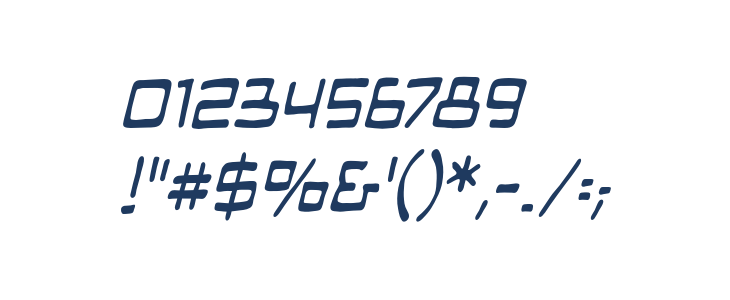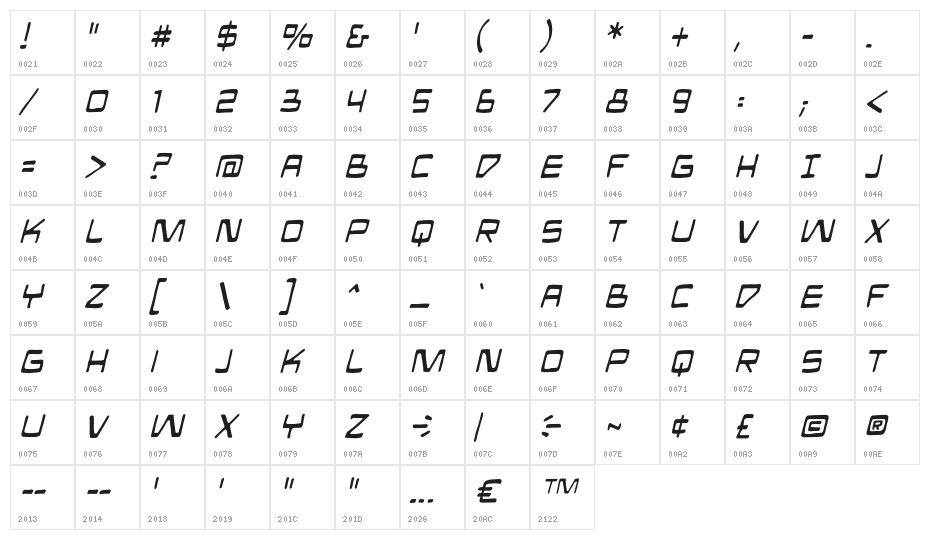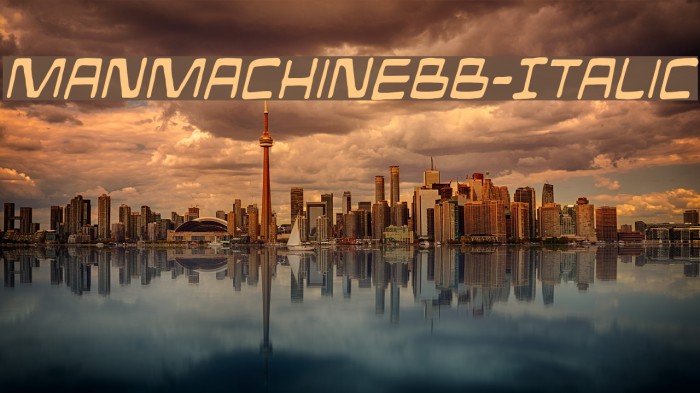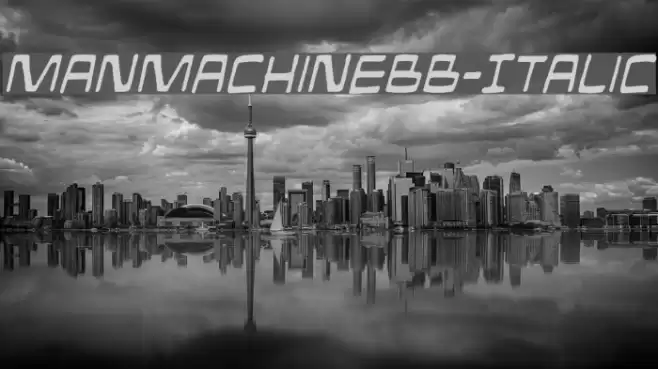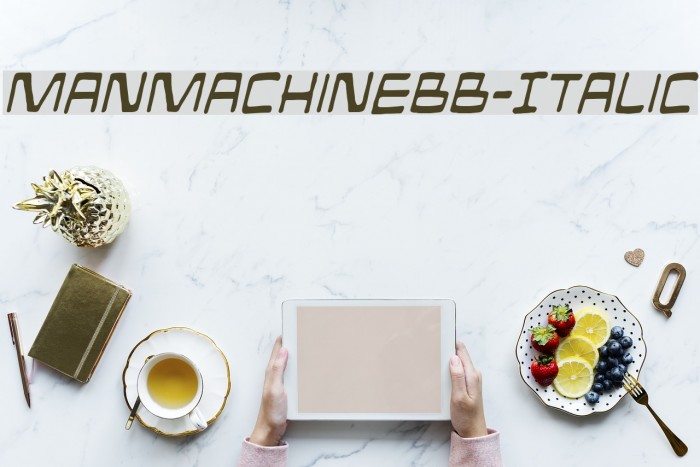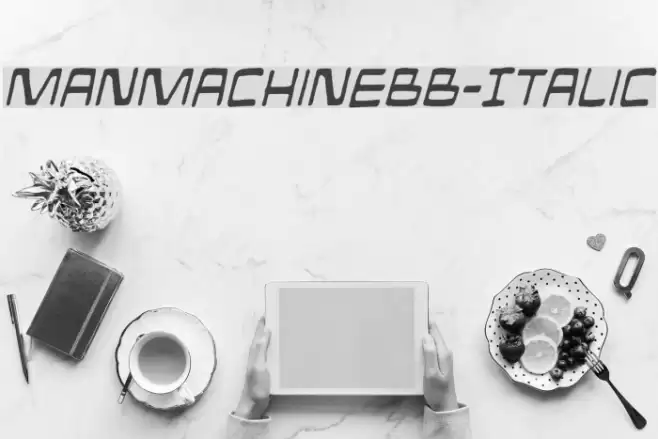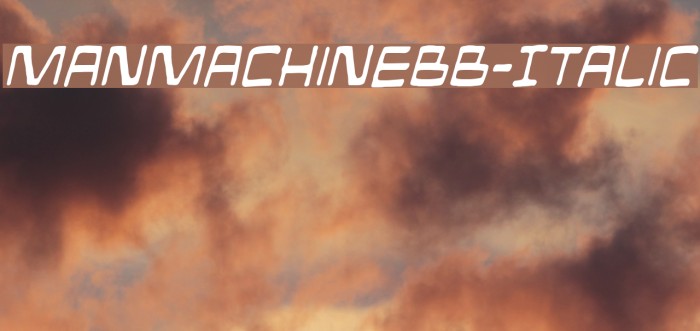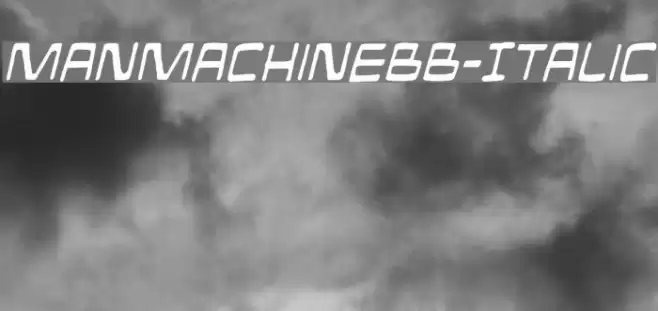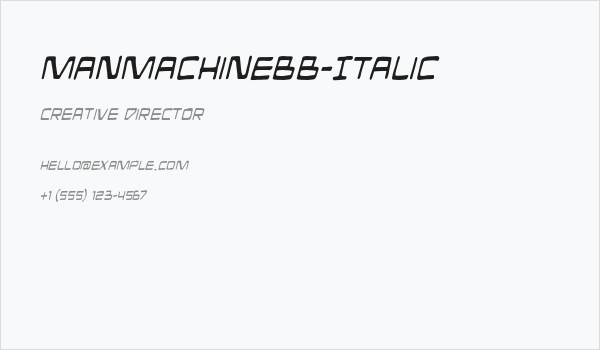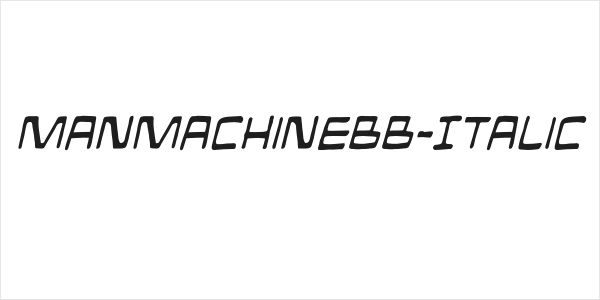
ManMachineBB-Italic Font
ManMachineBB-Italic Description
This font features a futuristic and mechanical design, characterized by its italicized and slightly condensed letterforms. The strokes are uniform, with a consistent thickness that gives it a sleek and modern appearance. The angular and geometric shapes of the characters convey a sense of precision and technology. The font includes both uppercase and lowercase letters, numerals, and a variety of special characters, making it versatile for various applications. Its distinct style is suitable for projects that require a modern and technical aesthetic.
| Use Case | Logos, Headlines, Branding |
| Proposed Projects | Ideal for technology branding, sci-fi themed designs, video game interfaces, and modern advertising. |